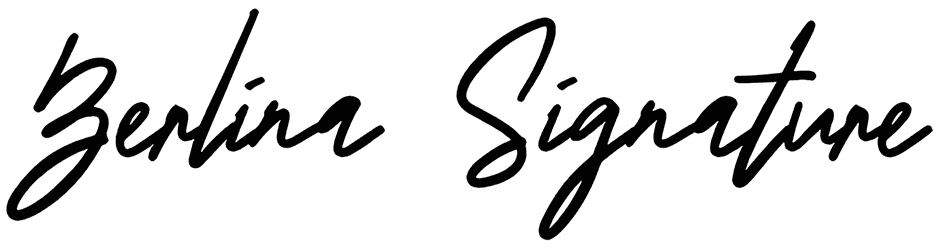
Berlina Signature Font
Adding Berlina Signature to texts is like adding ice cream to a cake that can liven up a dull text or phrase. This handwritten font gives you a natural atmosphere and can become the most widely used tool for implementing your projects.
By using this script font, which has an elegant and detailed style, you can give your content a lively spirit and use it for happy festivals, wedding cards, and special occasion greetings.